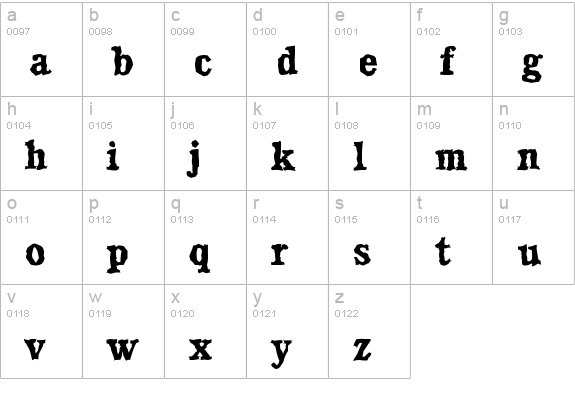
CalgaryRandom-Bold is a strong, high-contrast variant in the CalgaryRandom typeface family \xE2\x80\x94 well suited to headlines, attention-grabbing titles, and strong calls-to-action.
CalgaryRandom-Bold font is a captivating and versatile typeface that exudes a unique sense of modernity and boldness. With its striking and dynamic appearance, this font is perfect for grabbing attention and making a statement in any design project. The strong and confident letterforms of CalgaryRandom-Bold font are sure to leave a lasting impression on viewers. Best of all, CalgaryRandom-Bold font is available for free download at FontsMarket.com. This means that you can easily access and use this stunning font in your creative projects without any cost. Don't miss out on the opportunity to enhance your designs with the powerful presence of CalgaryRandom-Bold font, now just a click away for free at FontsMarket.com.